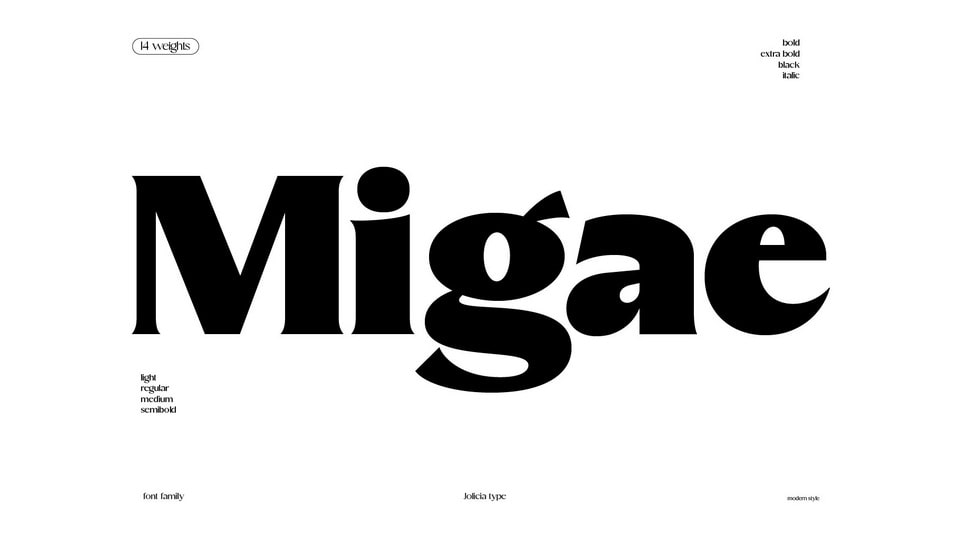
Download Migae font, a versatile and elegant display typeface designed to captivate and engage audiences across a wide range of design applications. Migae offers a harmonious balance of strength and elegance to fulfill your typographic needs.